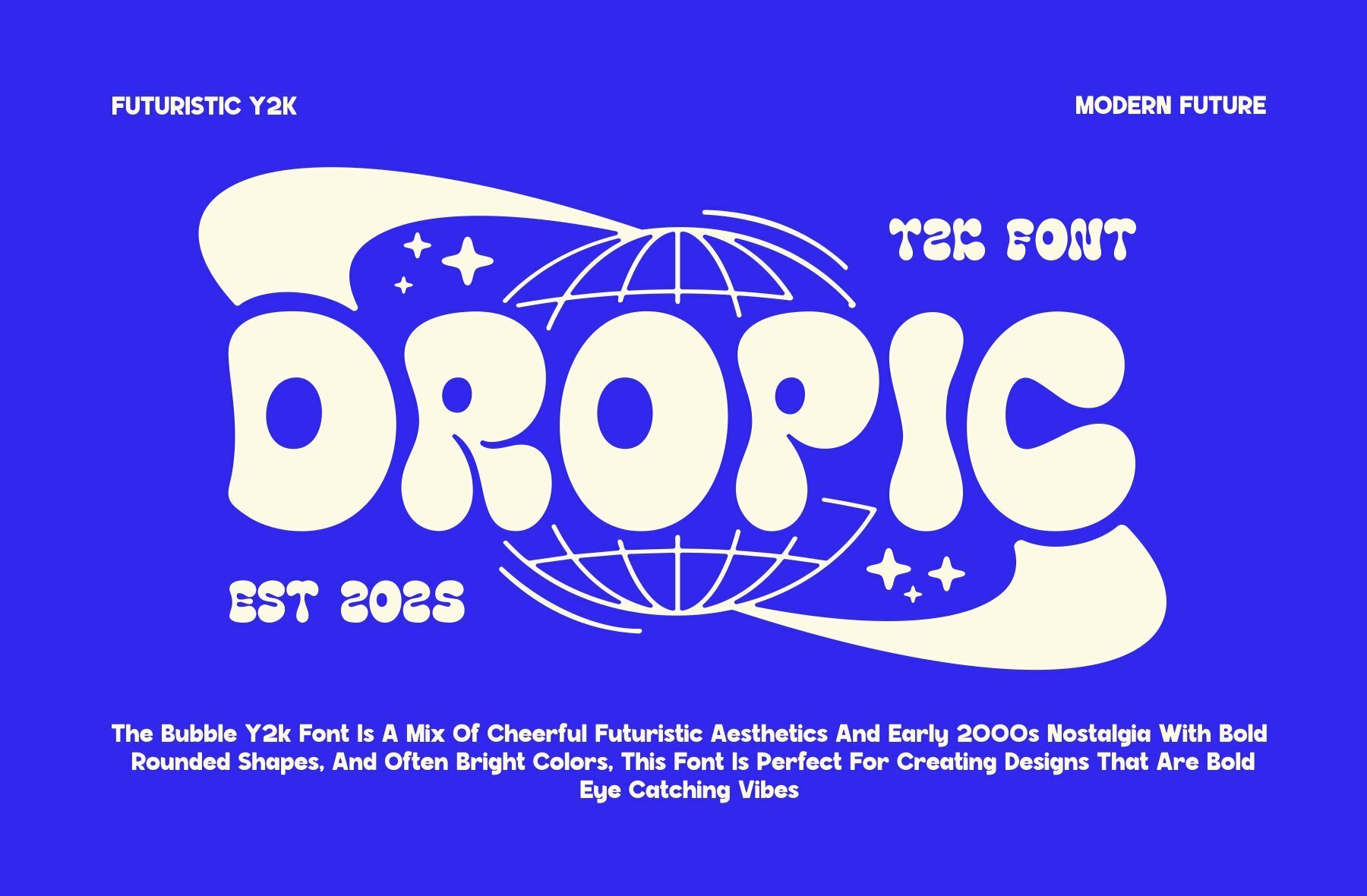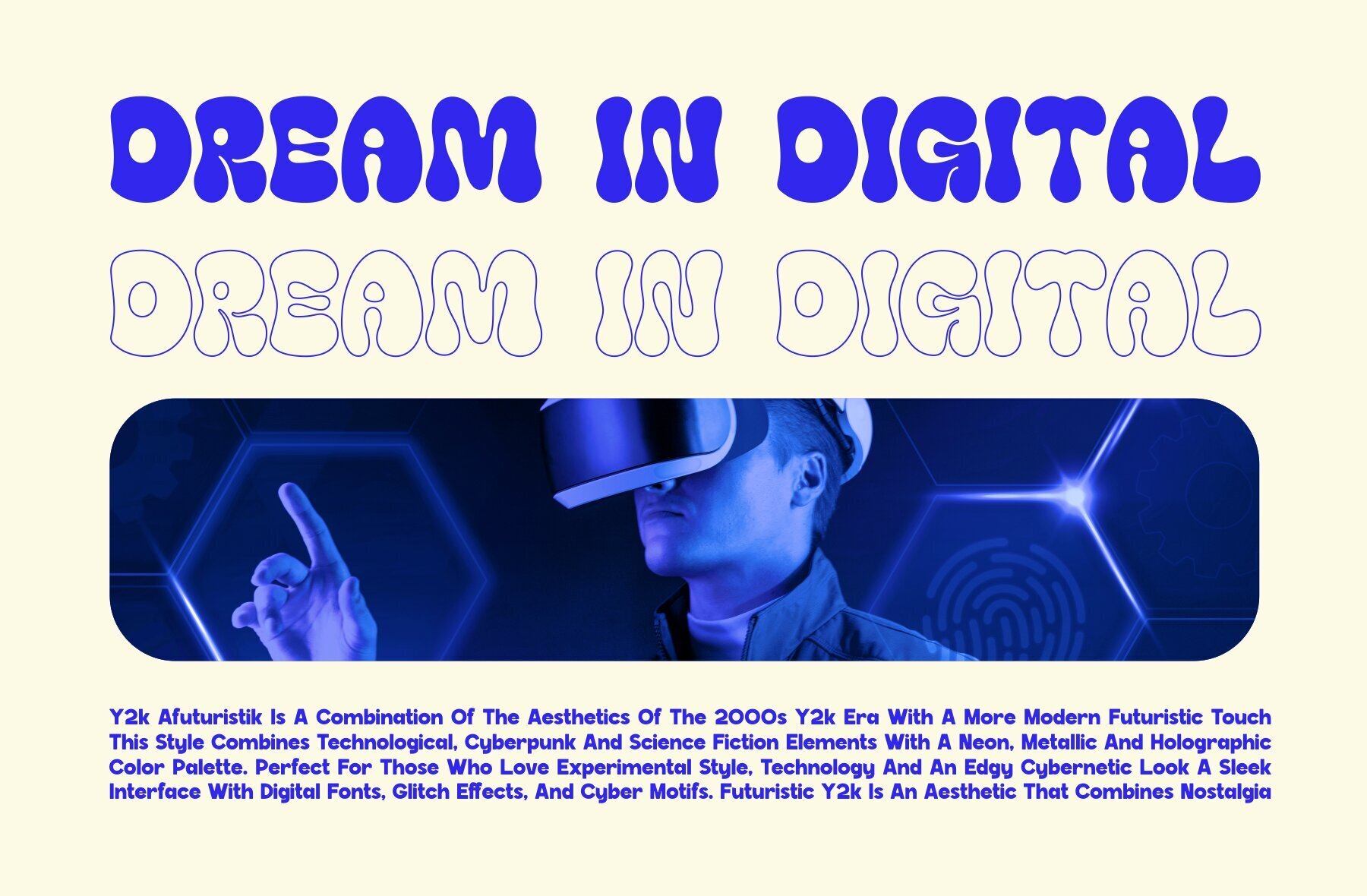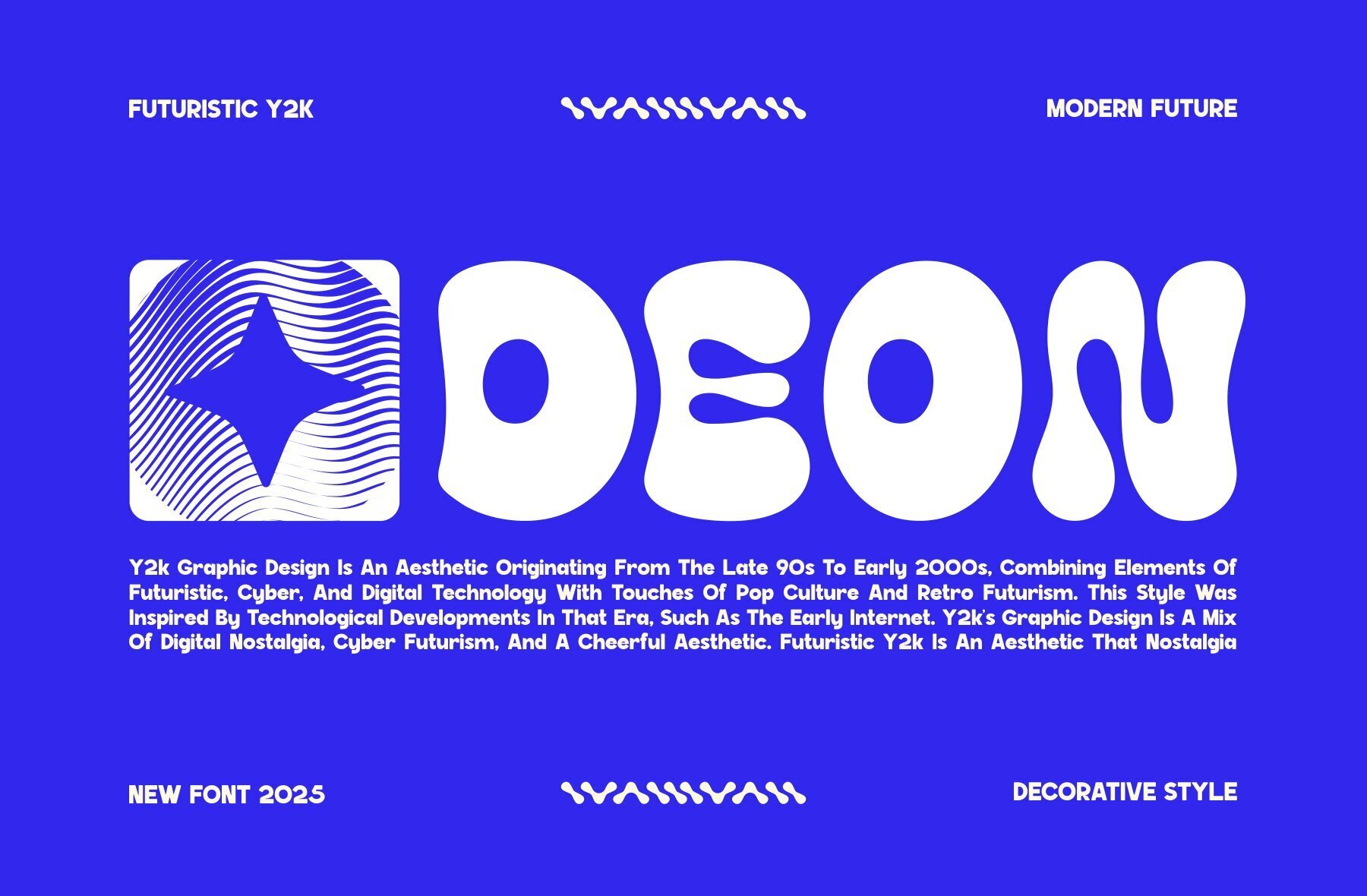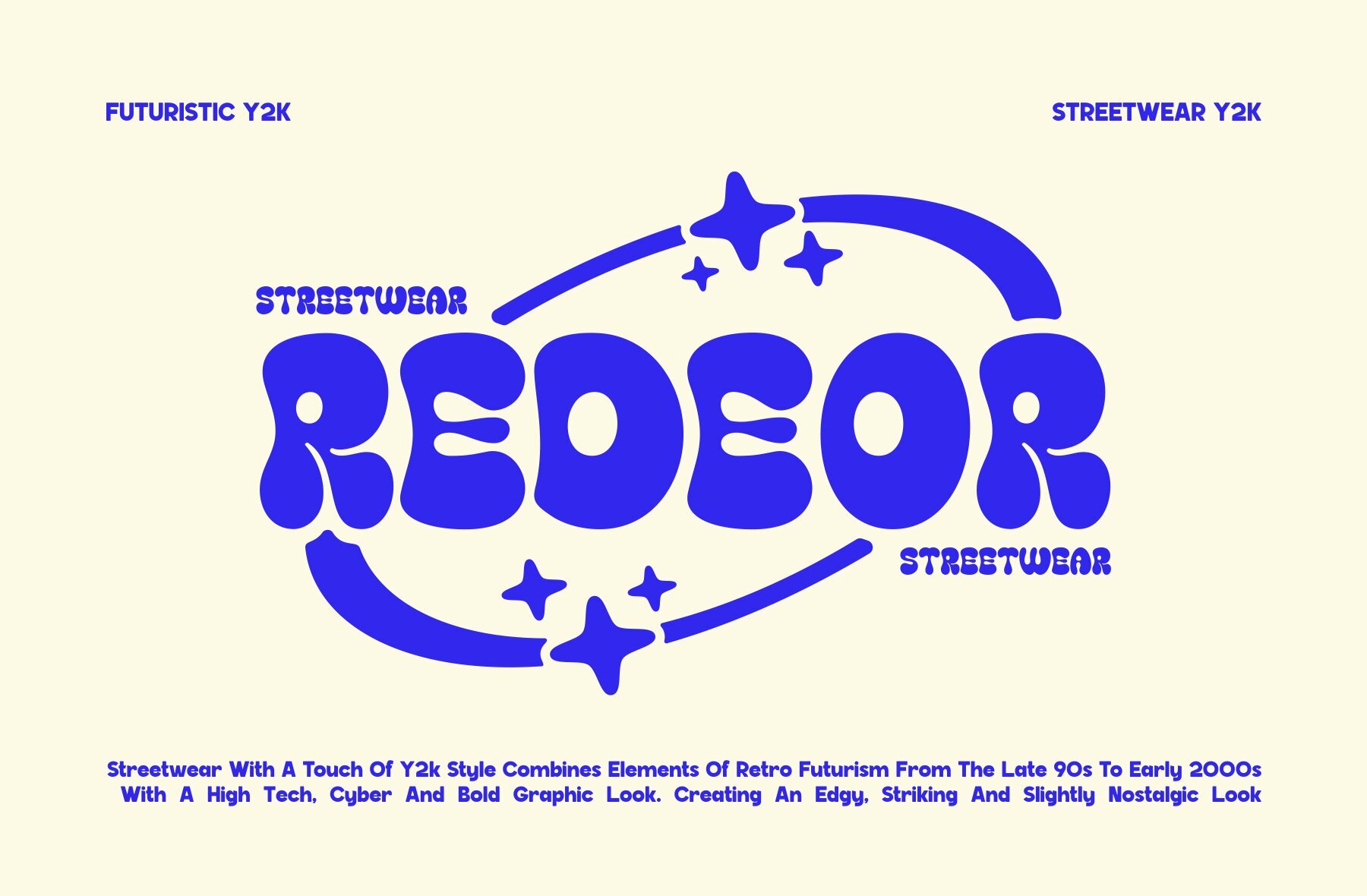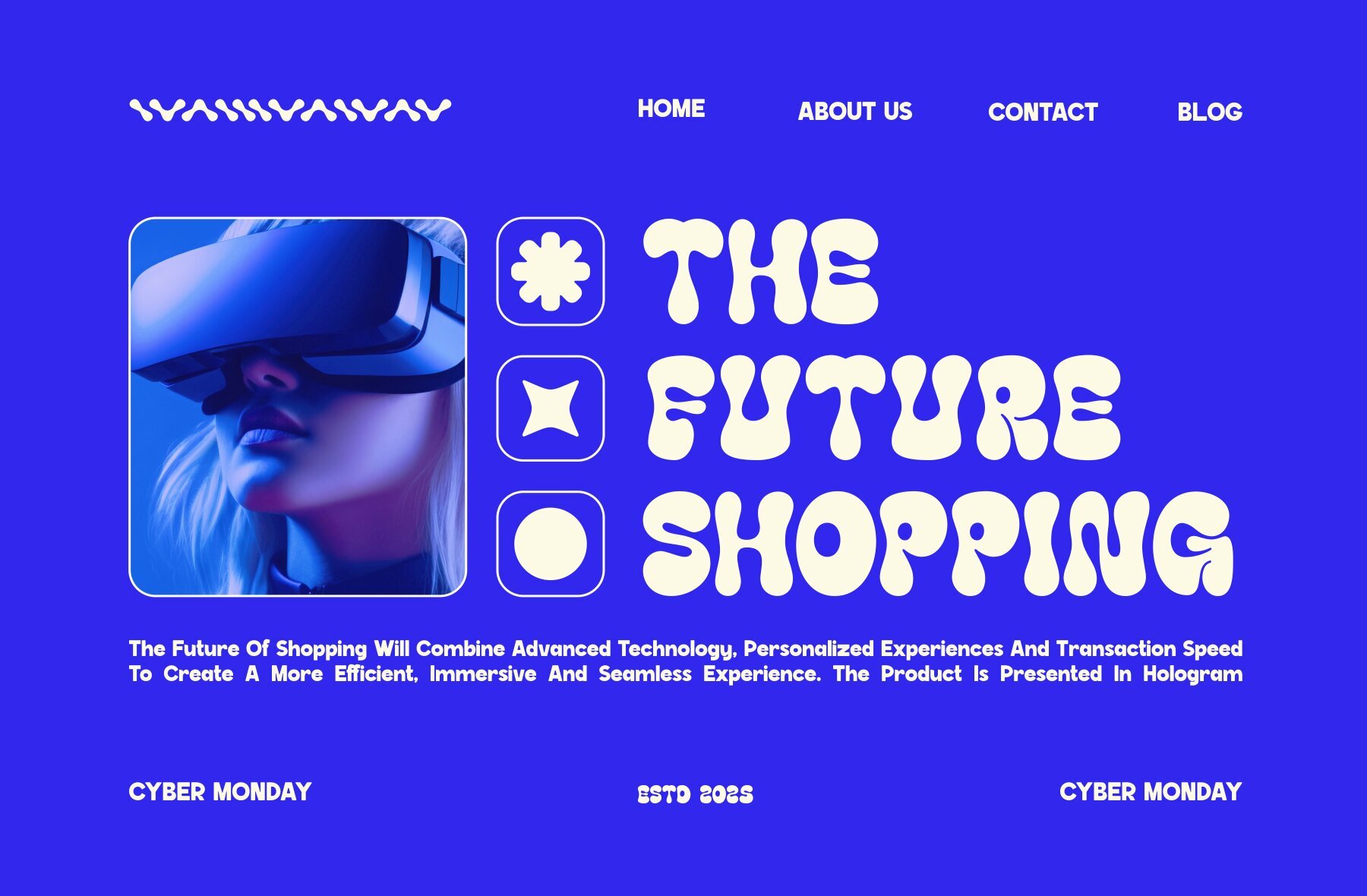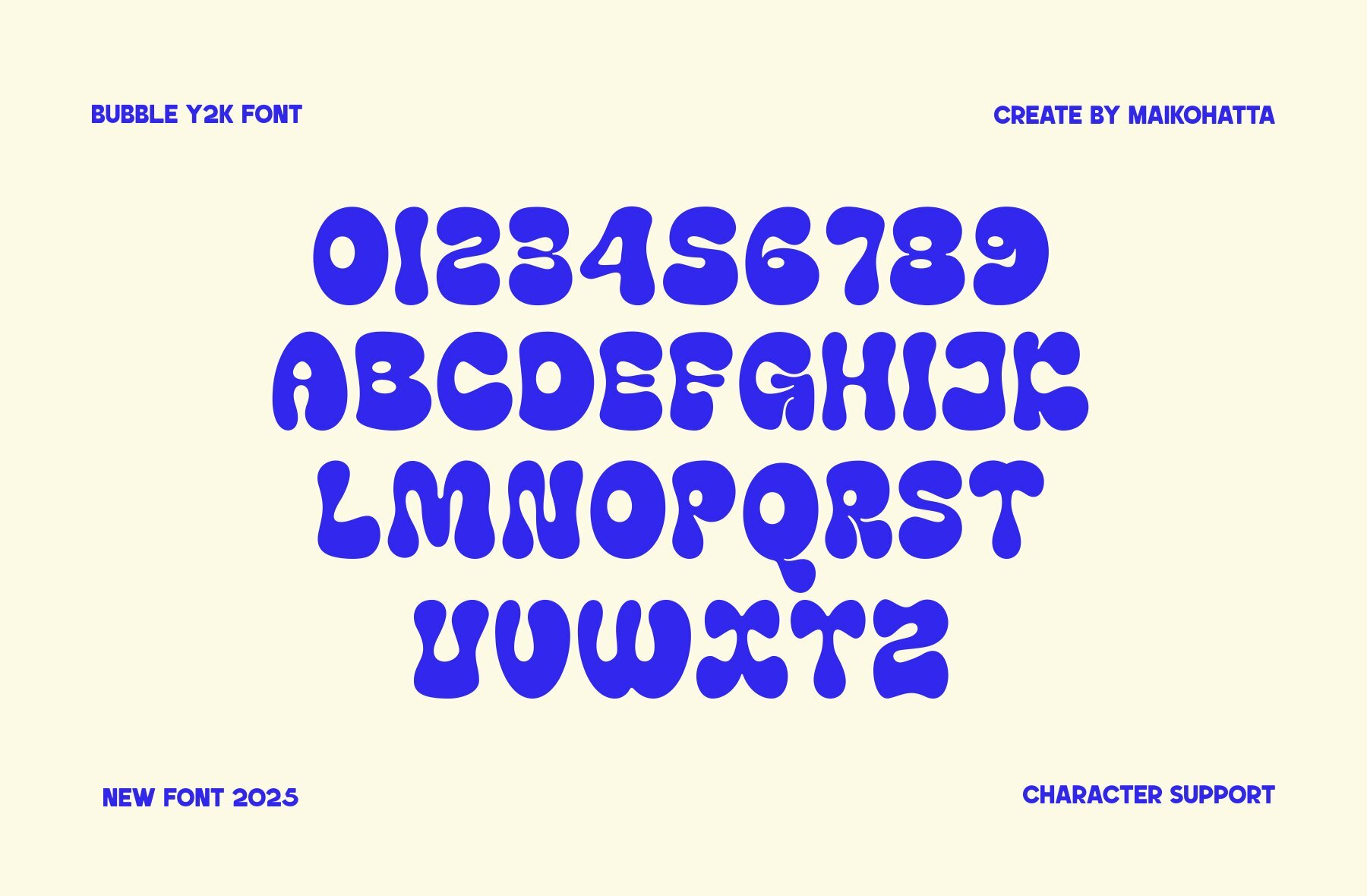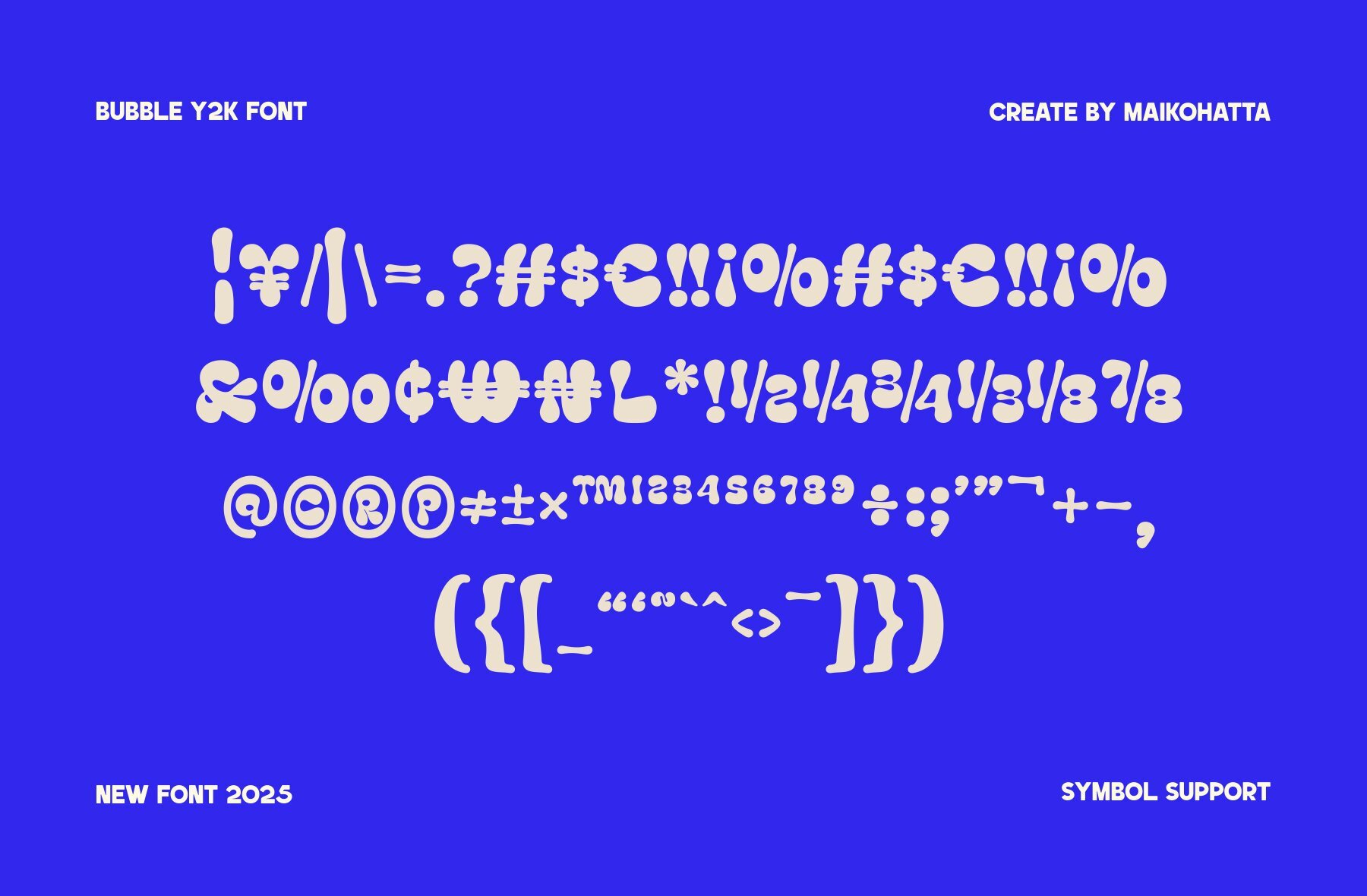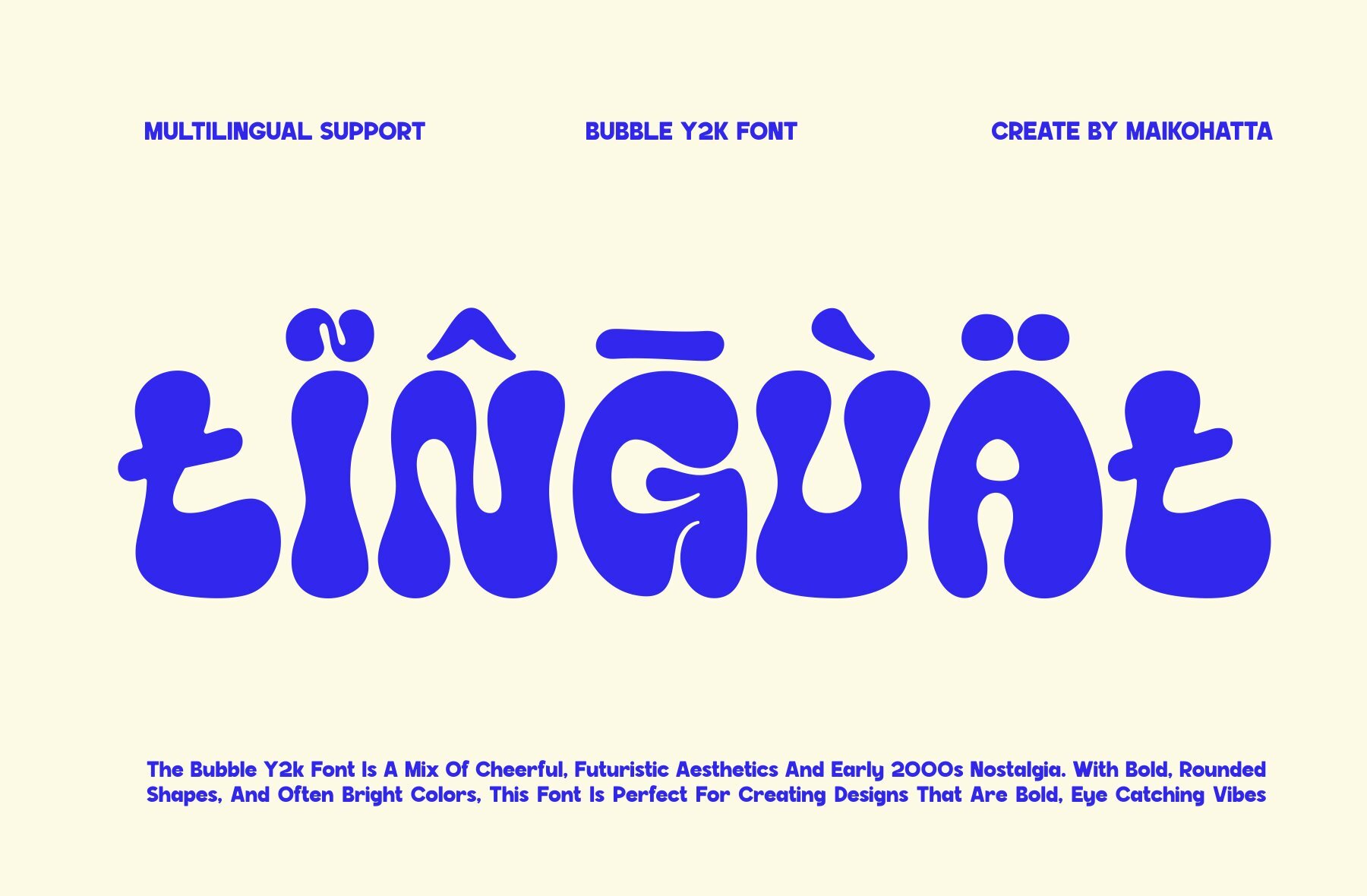
Dropic Font
DROPIC
The Dropic typeface captures the distinctive aesthetics of the Y2K era, a period known for its innovative designs and digital enthusiasm. Evoking the technological flair of the early 2000s, this font draws inspiration from retro computer displays, pixel art, vibrant neon lights, and geometric forms, making it a perfect choice for projects seeking a nostalgic yet futuristic touch.Dropic: Y2K Display Font with a Futuristic Twist